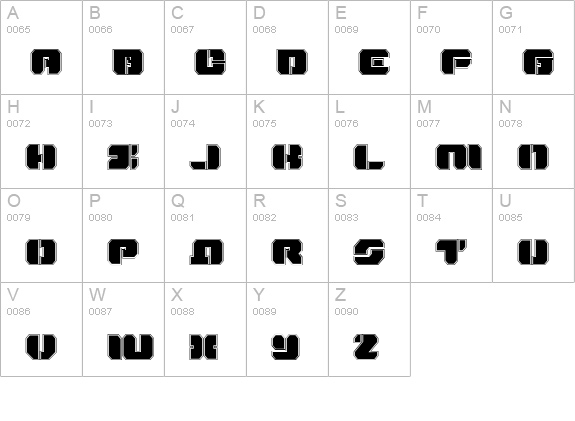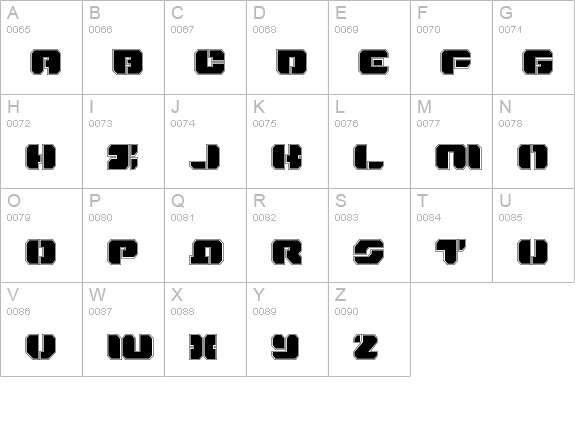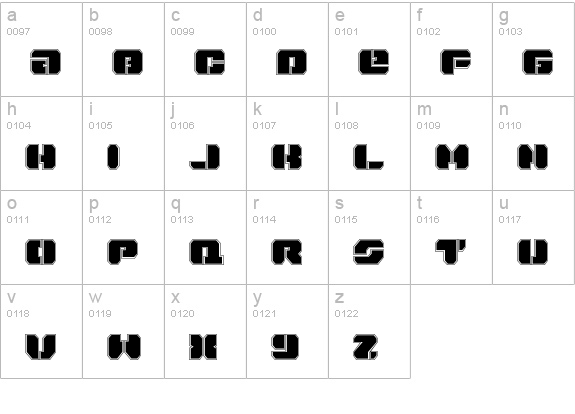
Dan Stargate Pro is a sleek and modern font that exudes sophistication and style. With its clean lines and futuristic aesthetic, this font is perfect for creating eye-catching designs that command attention. Whether you're working on a website, poster, or logo, Dan Stargate Pro will give your project a professional and polished look. The best part? Dan Stargate Pro is completely free to download at FontsMarket.com. This means you can access this high-quality font without any cost, making it a valuable addition to your design toolkit. Don't miss out on the opportunity to elevate your designs with Dan Stargate Pro - download it today and see the difference it can make!